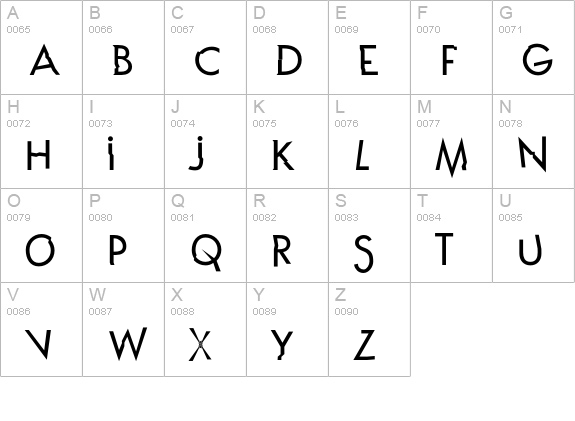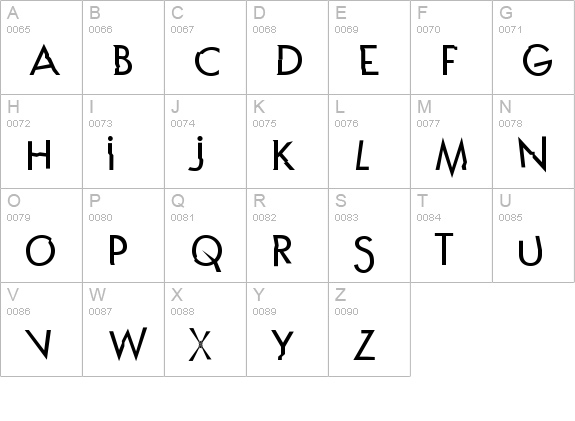
ITCYomama Font Details
Introducing ITCYomama, a revolutionary font that effortlessly combines elegance with a touch of playfulness. With its graceful curves and captivating strokes, this font is sure to captivate and inspire. ITCYomama is a versatile typeface that can be used for a wide range of design projects, from logos and branding to invitations and web graphics. Its unique character and attention to detail make it stand out from the crowd, allowing your designs to shine with an air of sophistication. But the best part about ITCYomama? It's absolutely free! That's right, you can download this amazing font without spending a single penny. Thanks to FontsMarket.com, ITCYomama is freely available for download, making it accessible to designers, creatives, and typography enthusiasts everywhere. So why wait? Elevate your designs to new heights with ITCYomama. Download this remarkable font today and let your creativity flow like never before.